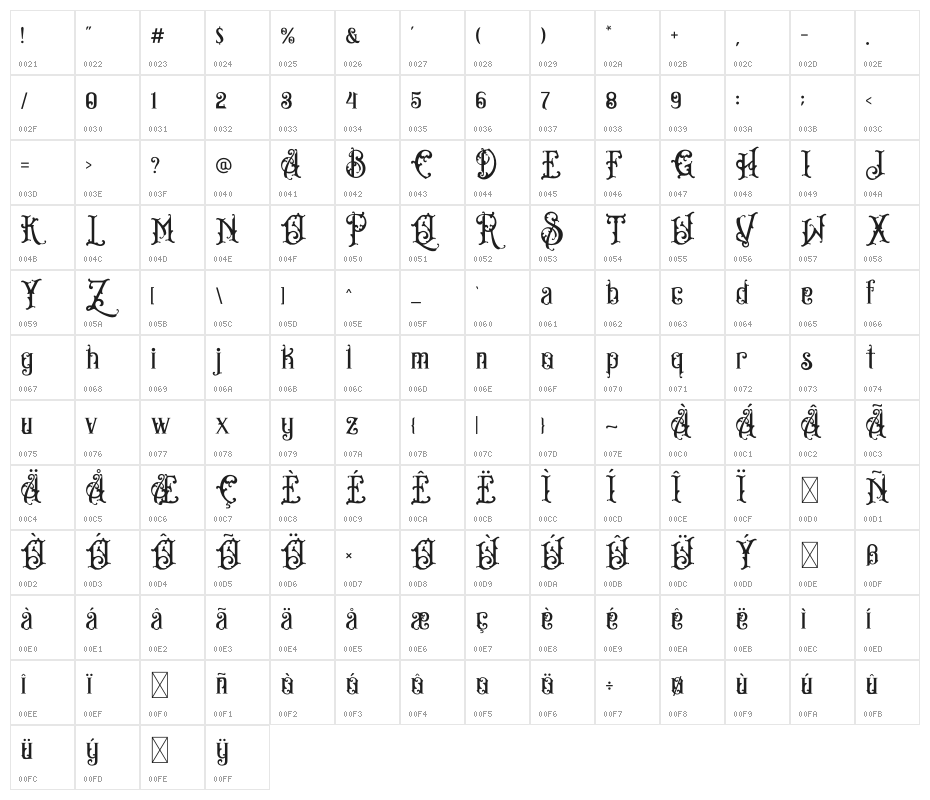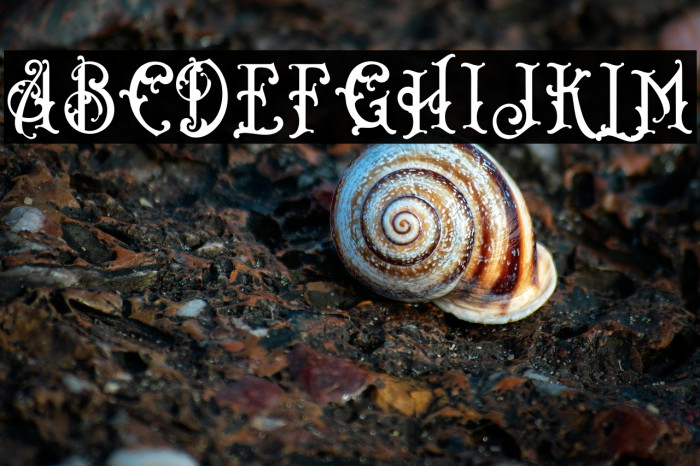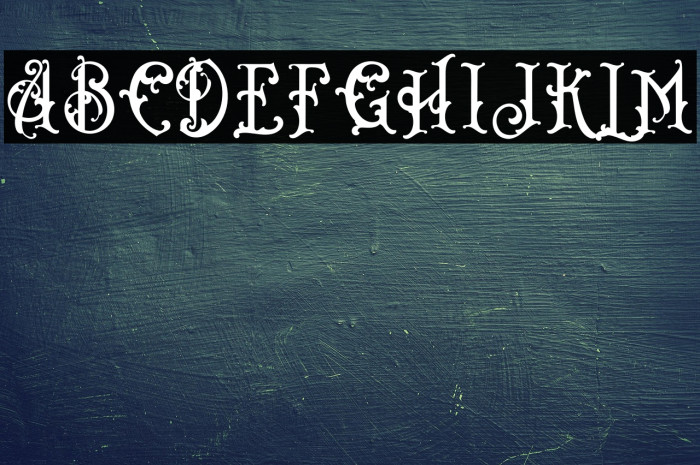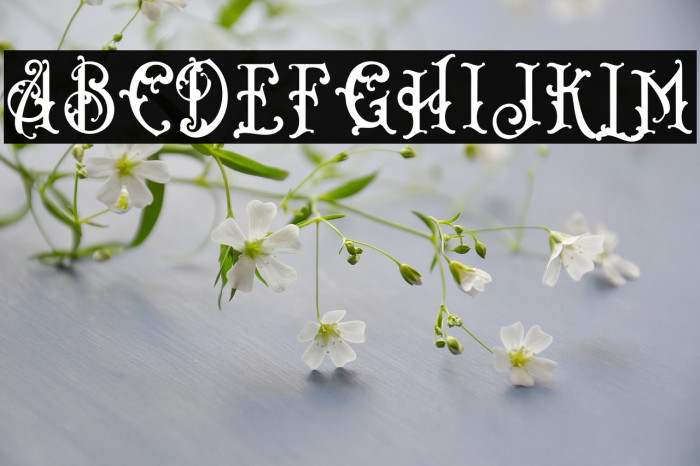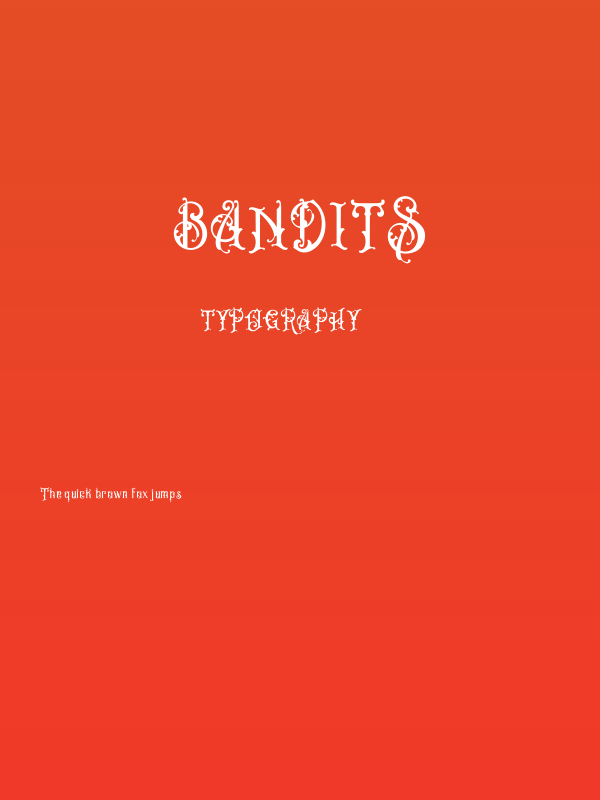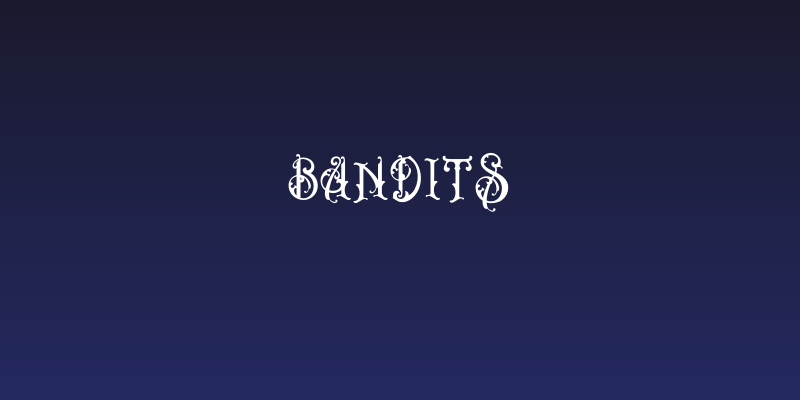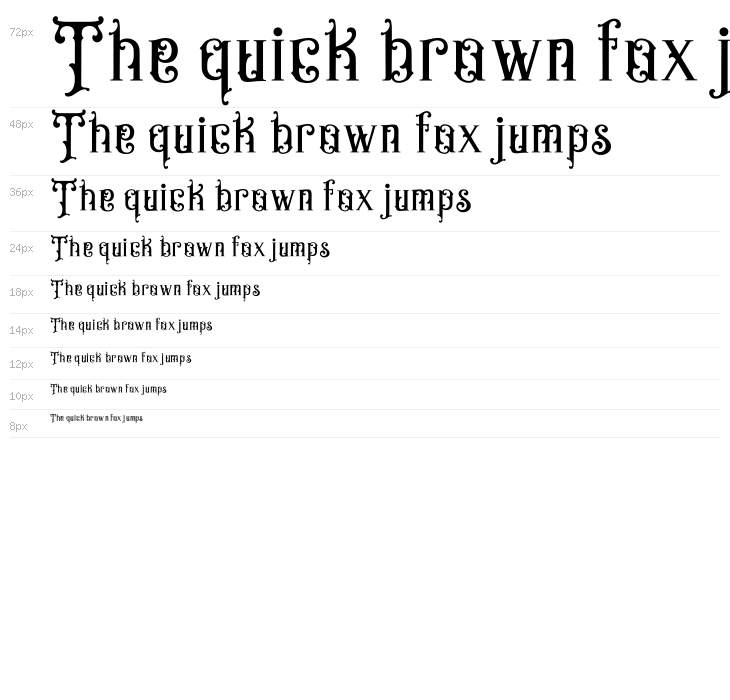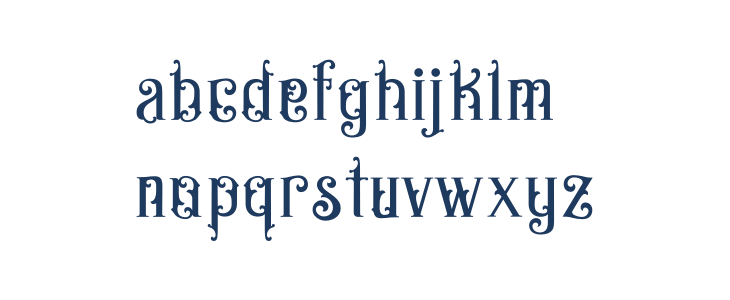
Bandits Font
Bandits Description
This font features an intricate and decorative design, characterized by its ornate and elaborate letterforms. The uppercase letters are particularly embellished with flourishes and unique curves, giving it a distinct and eye-catching appearance. The lowercase letters maintain a similar style, though slightly more subdued, ensuring readability while still retaining the decorative essence. The numerals and special characters are consistent with the overall aesthetic, providing a cohesive look across all characters. This font is ideal for projects that require a bold and artistic touch, such as branding, posters, or themed events. Its unique style makes it stand out, capturing attention with its artistic flair.
| Proposed Projects | Ideal for branding, posters, themed events, and artistic projects. |